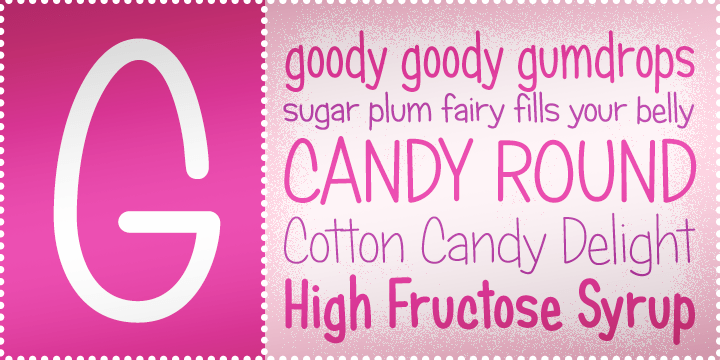
Candy Round BTN
Candy Round BTN is a friendly display family inspired by vintage confectionery packaging and shaped with a softer, more approachable personality. Part of the classic Candy family, it blends nostalgic sweetness with a clean modern touch, making it feel both retro and highly usable. Its rounded forms give it a cheerful, inviting tone that works especially well for candy and food packaging, children's products, party graphics, branding, signage, posters, and playful editorial design. With standard and condensed styles in multiple weights, Candy Round BTN offers flexible display options that remain eye-catching and readable even at smaller sizes.